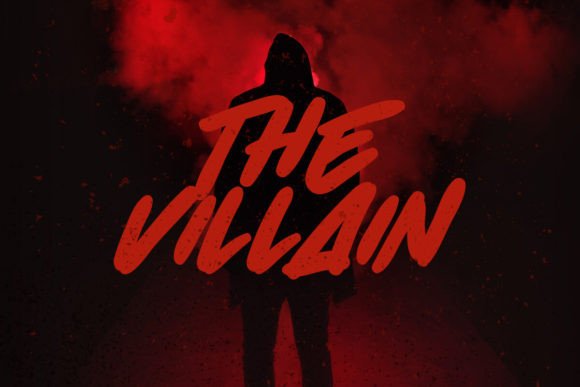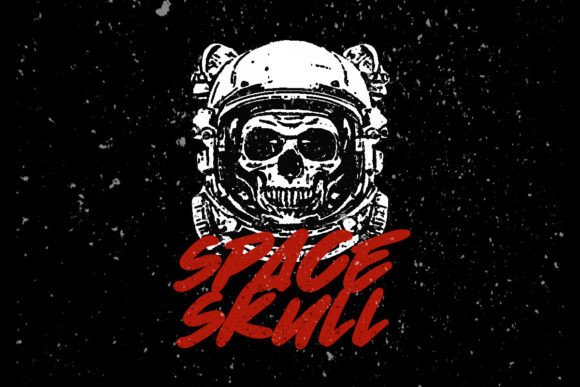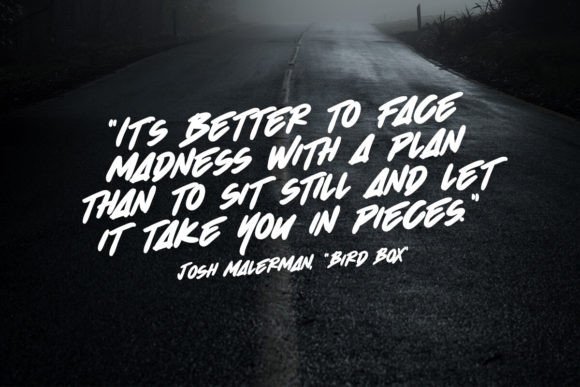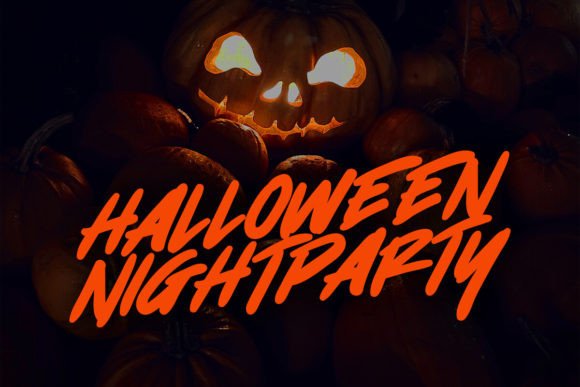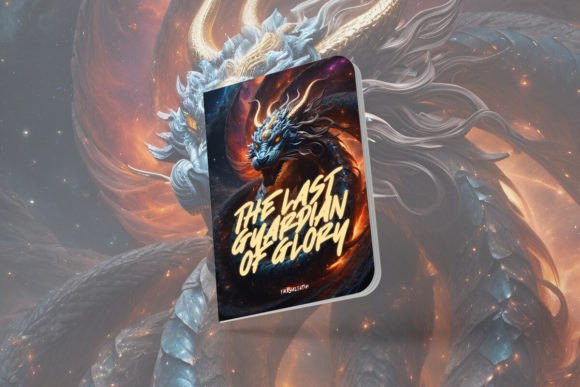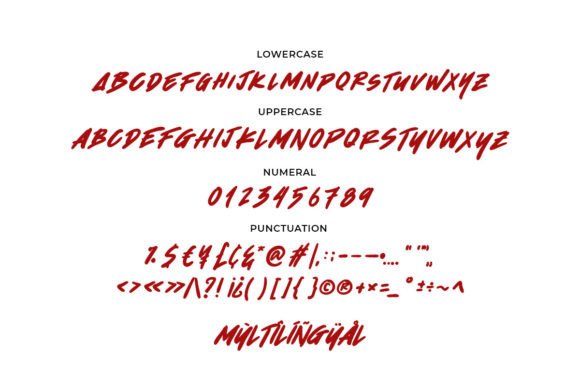
Unleash the Darkness: Introducing Bearday Font
Have you ever stared at a blank page, waiting for inspiration to strike, only to have a creepy character or a mysterious figure pop into your mind? That’s exactly what happened to us when we discovered the Bearday Font. This hauntingly beautiful display font is designed to capture the essence of horror and mysticism, making it perfect for designers looking to add an air of mystery to their projects.
The Bearday Font is more than just a typeface – it’s a tool to transport your audience to a world of darkness and wonder. Whether you’re creating a poster, label, logo, movie title, or greeting card, this font will help you stand out from the crowd. Its unique blend of elegance and eeriness makes it a valuable addition to any designer’s toolkit.
Bearday Font Key Features
- Unique Characteristics: The font features a unique, hand-drawn design with subtle imperfections, giving it a personal and artistic feel.
Bearday Font Review
As a designer, I’ve had the chance to play around with the Bearday Font, and here’s my honest take on it.
- Bearday Font has a unique, quirky charm to it that sets it apart from more generic fonts.
- The font’s irregularity adds a touch of character and whimsy to any design it’s used in.
- It’s particularly well-suited for display text, like headings and titles.
- Unfortunately, the font’s irregularity can also make it difficult to read in certain contexts.
- The font’s limited character set and lack of language support may be a problem for designers who need to work with multiple languages.
- It’s not the most versatile font, and it may not be suitable for large blocks of text or body copy.
Overall, Bearday Font is a great choice for designers who want to add a touch of personality to their designs. However, it’s not a one-size-fits-all solution, and designers should be aware of its limitations before using it in their projects.
Bearday Font is ideal for creative projects that require a unique, hand-drawn look.
Use it for:
– Branding and logos
– Social media graphics
– Print materials (business cards, flyers, etc.)
Remember to experiment with different font sizes, colors, and styles to get the most out of Bearday Font.